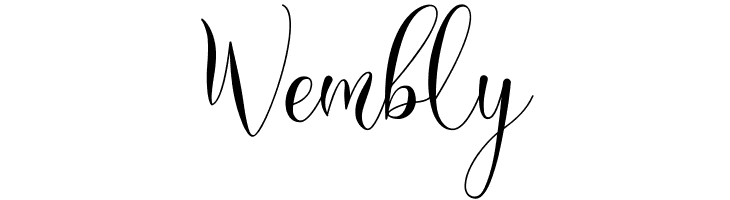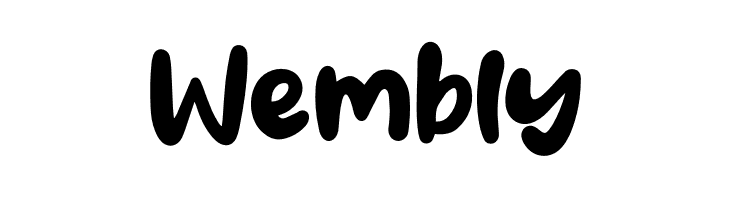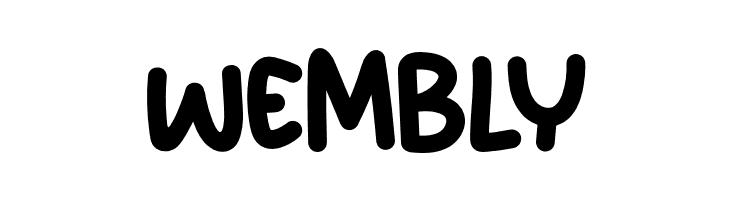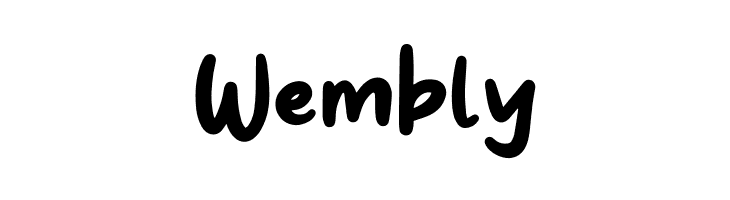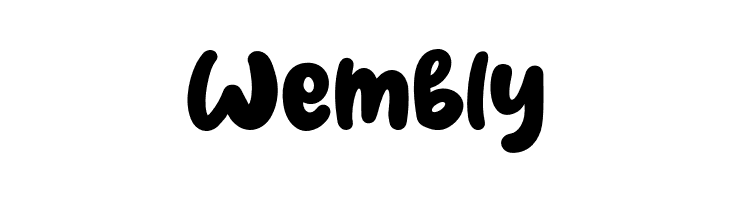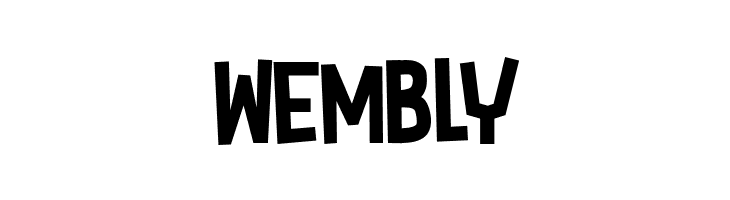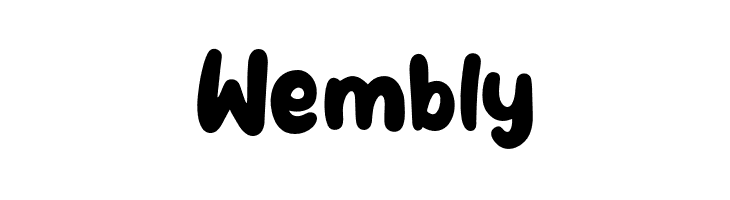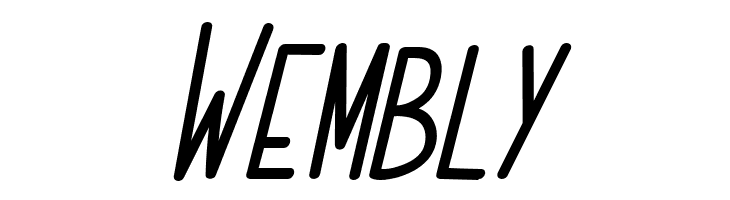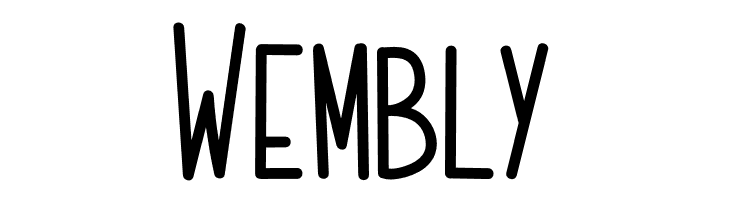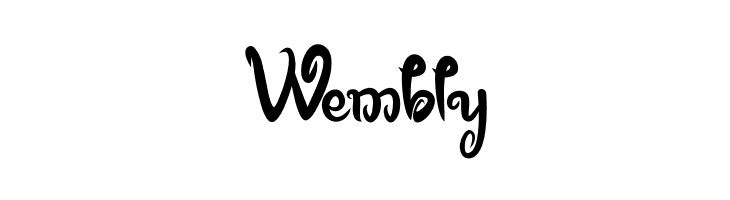
A playful, casual script font with a handwritten appearance.
An elegant script font with flowing loops and decorative flourishes.
A bold, rounded font with a playful, hand-drawn style.
A bold, playful handwritten font with thick, rounded strokes.
A playful, bold font with rounded edges and a hand-drawn style.
A playful, bold handwritten font with rounded edges and consistent strokes.
A playful, bold font with rounded, bubbly characters and a hand-drawn feel.
A bold, geometric font with sharp angles and a modern style.
A playful, bold, and rounded font with a hand-drawn feel.
A bold, angular Gothic-style font with sharp, intricate details.
A dynamic, italicized handwritten font with a modern and playful style.
A playful, hand-drawn font with tall, narrow characters and a whimsical style.
A bold, playful script font with decorative loops and curls.
A playful, energetic script font with a handwritten style.
A whimsical, hand-drawn font with playful, cursive-like forms.
A playful, handwritten font with a smooth, flowing style.
A playful, handwritten font with smooth curves and a casual style.
A dynamic, cursive script font with fluid, interconnected strokes.
A bold, narrow font with strong visual impact and consistent stroke width.
A bold, italicized font with high contrast and tight spacing, perfect for impactful headlines.
A bold, impactful typeface with strong, block-like characters.
A bold, italic, and condensed font with a modern and dynamic style.
A playful handwritten font with fluid, dynamic strokes and a casual style.
A playful, handwritten-style font with bold, rounded strokes and a dynamic slant.
A casual, handwritten font with a playful and informal style.
A bold, handwritten font with a playful and casual style.
A whimsical, curly font with a playful hand-drawn style.
An elegant script font with flowing, connected strokes and artistic flair.
A bold, dynamic font with slanted characters and strong strokes.
A playful, bold font with rounded, bubbly characters.
A bold, modern sans-serif font with geometric letterforms and consistent stroke width.
A modern, geometric sans-serif font with clean lines and excellent readability.
A playful, rounded font with bold, smooth curves and a friendly appearance.
A playful, bold font with rounded, thick strokes and a friendly appearance.
A bold, rounded, and playful font with a hand-drawn appearance.